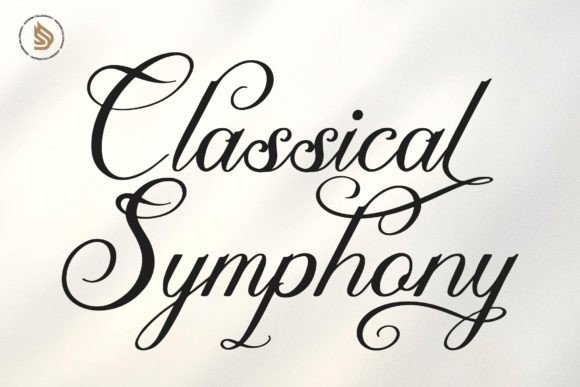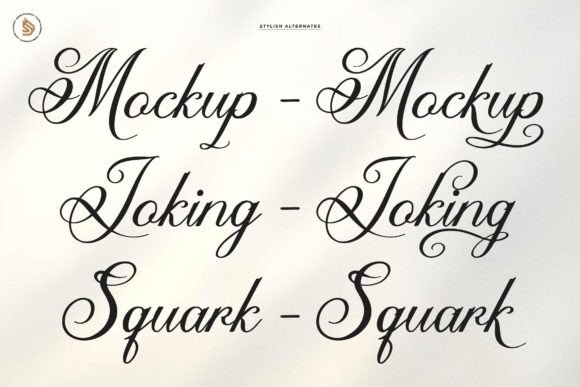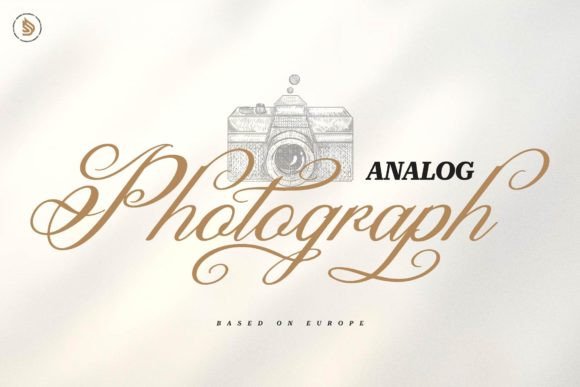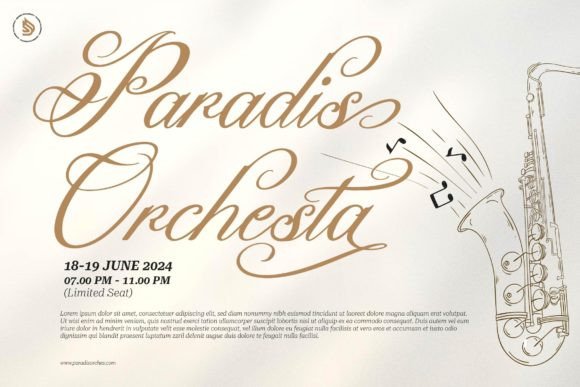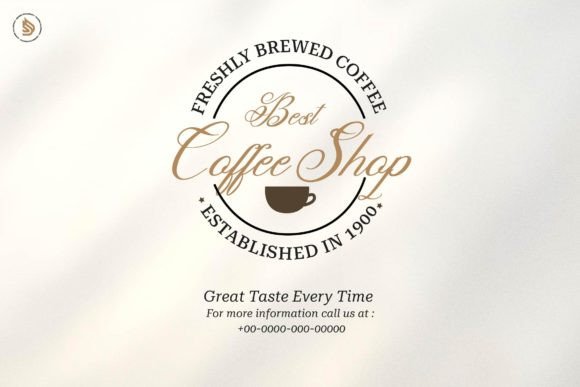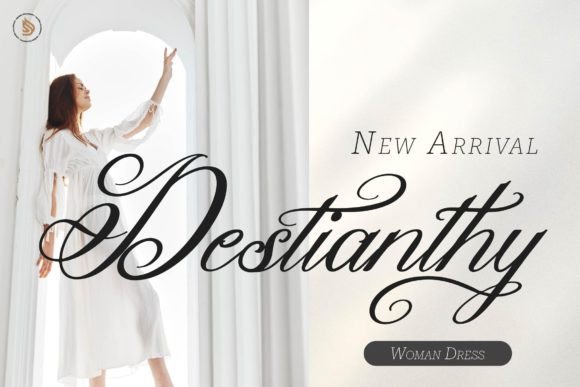
Introduction to Katarina Delvor Font
Have you ever been working on a creative project, pouring your heart and soul into it, only to feel like something is missing? That’s when I discovered the Katarina Delvor Font, and it completely transformed my design process. This beautiful, elegant font adds a touch of sophistication and beauty to any project, making it perfect for invitations, logos, and decorative designs.
As a designer, I know how valuable a high-quality design resource can be. The Katarina Delvor Font is a game-changer, offering a stylish, handwritten look that’s both timeless and modern. With its free download and transparent background, it’s easy to incorporate into your designs, and its high quality ensures that it will always look professional.
Whether you’re working on a creative project or just need a beautiful font for a special occasion, the Katarina Delvor Font is an excellent choice. Its versatility and beauty make it a valuable addition to any designer’s toolkit, and I’m excited to share more about this amazing font with you.
Key Features of Katarina Delvor Font
- Includes 10 unique styles and 100 glyphs, providing ample options for creative expression.
- High-resolution font, suitable for use in print and digital media, including signage, logos, and branding materials.
- Designed for use in a variety of design contexts, including fashion, beauty, and luxury brands.
Honest Review: Katarina Delvor Font
As a designer, I’m always on the lookout for high-quality design resources to elevate my creative projects. Recently, I stumbled upon the Katarina Delvor Font, and I must say, it’s a game-changer. With a free download option, I was able to integrate this font into my latest design project without breaking the bank.
The Katarina Delvor Font boasts a beautiful, elegant design that’s perfect for luxury brands or any project requiring a touch of sophistication. The font features a transparent background, allowing for seamless integration with any design element. I was impressed by its high quality and versatility.
- Beautiful, elegant design perfect for luxury brands
- Transparent background for easy integration with design elements
- High-quality design that’s sure to elevate any creative project
- Some users may find the font too ornate or over-the-top for certain design projects
- May not be suitable for projects requiring a more minimalist aesthetic
Overall, I’m thoroughly impressed with the Katarina Delvor Font. Its high quality and versatility make it an excellent addition to any designer’s toolkit. With its free download option, it’s a must-have for any designer looking to elevate their creative projects without breaking the bank.
The Katarina Delvor Font is ideal for various design projects, including:
Brochures and flyers
Business cards and letterheads
Presentations and reports
Web design and development